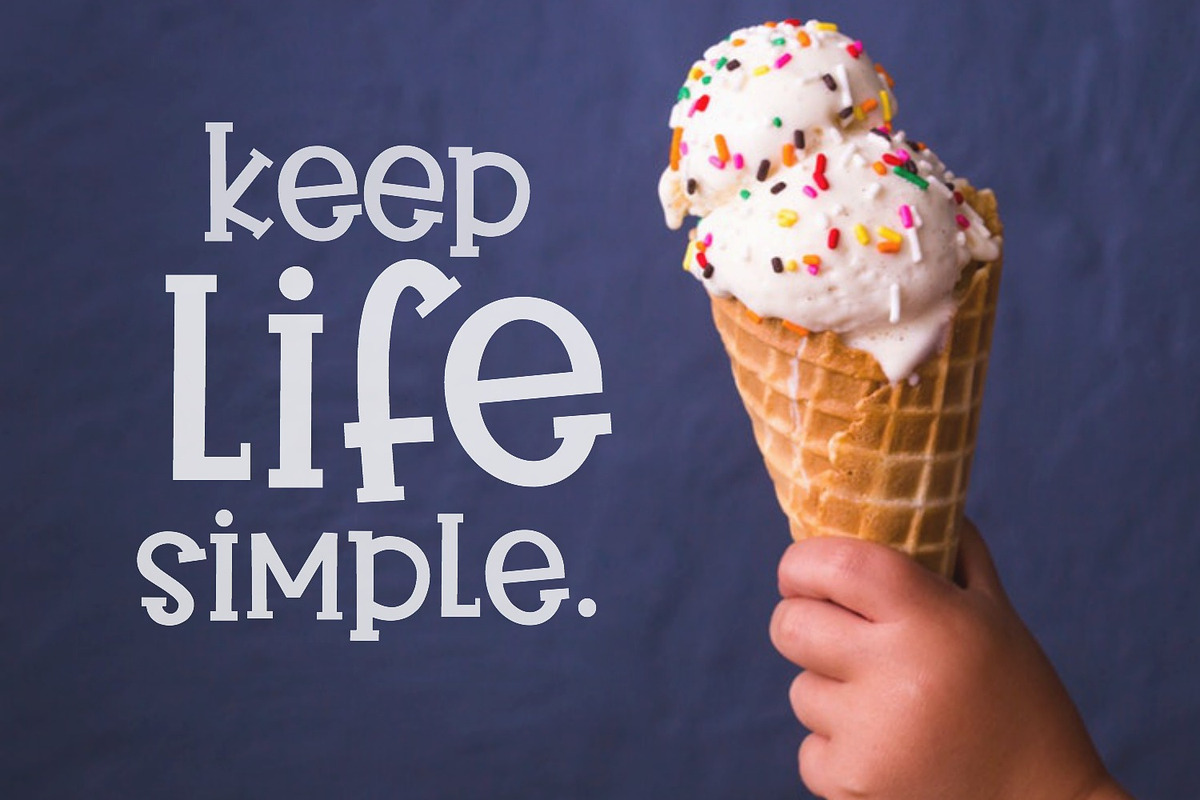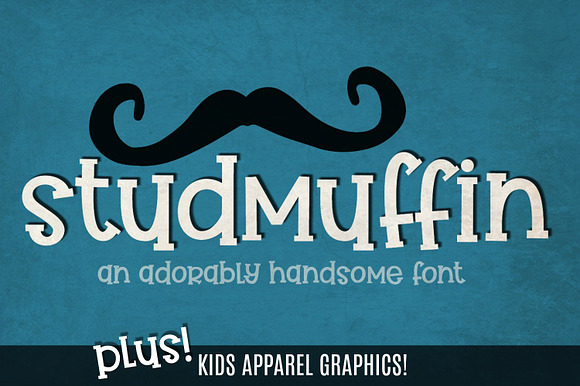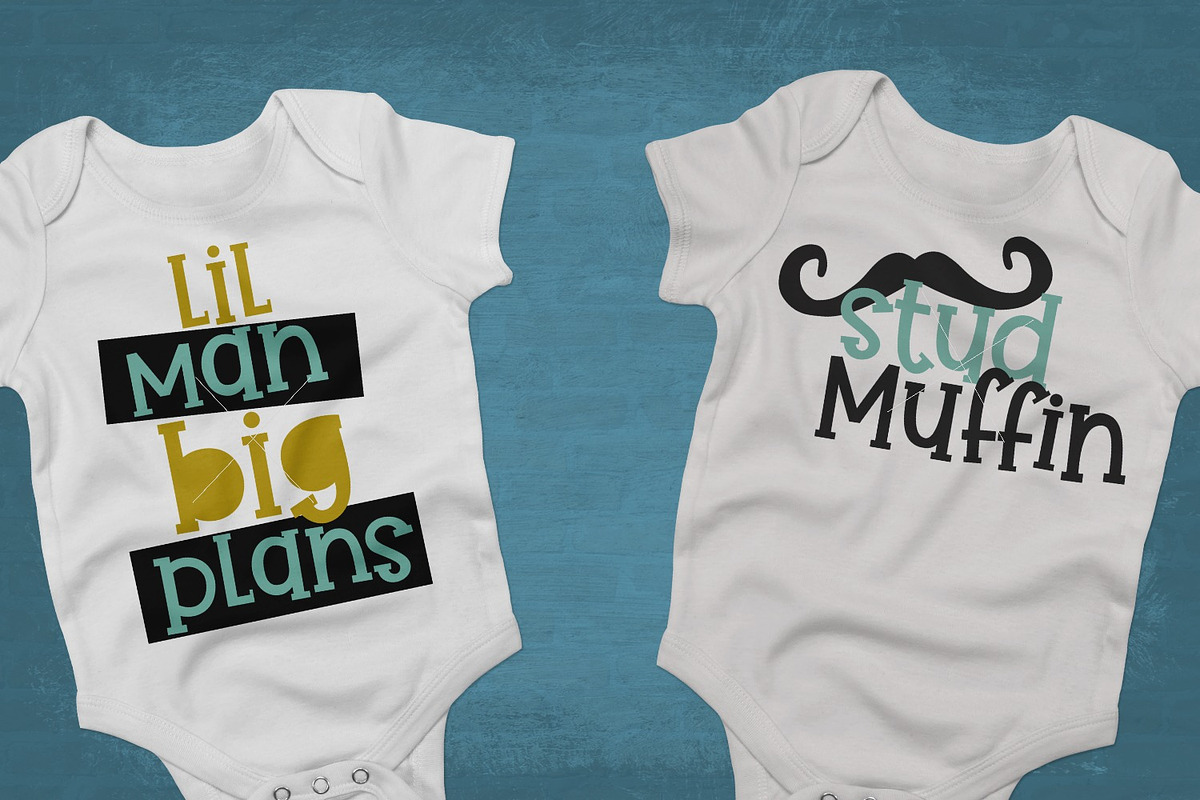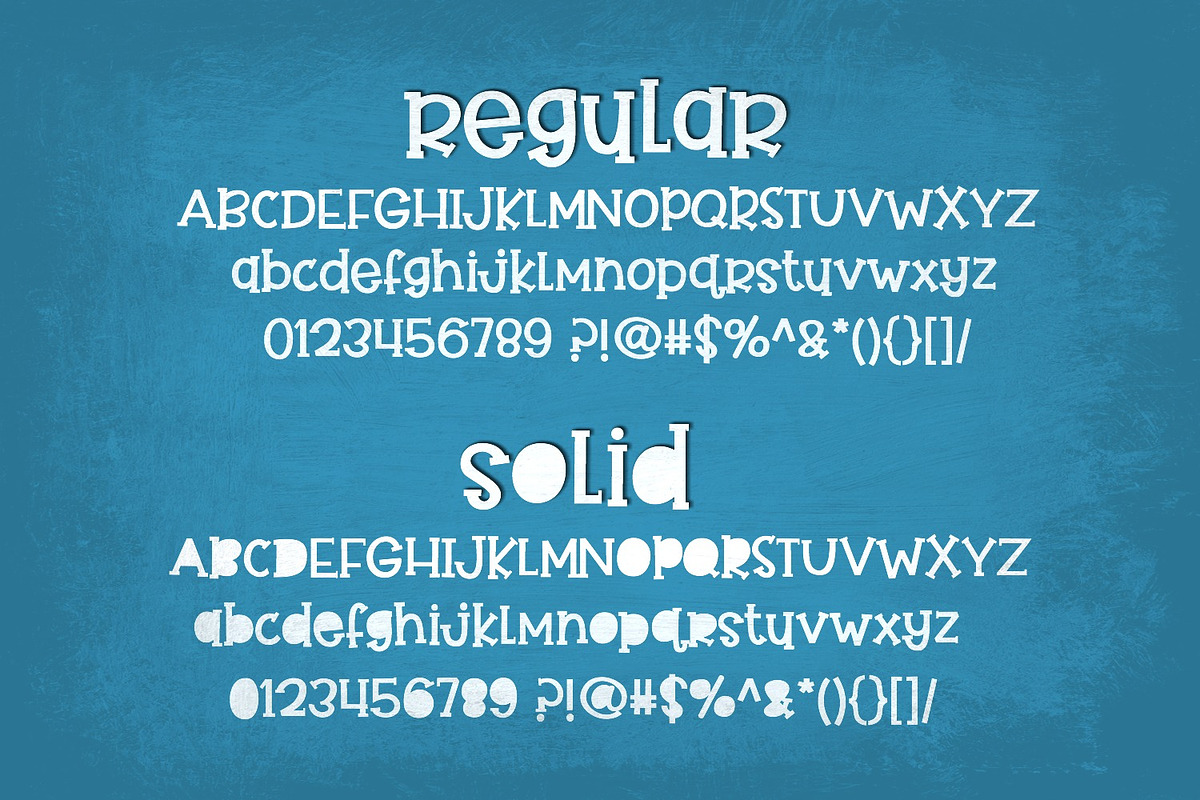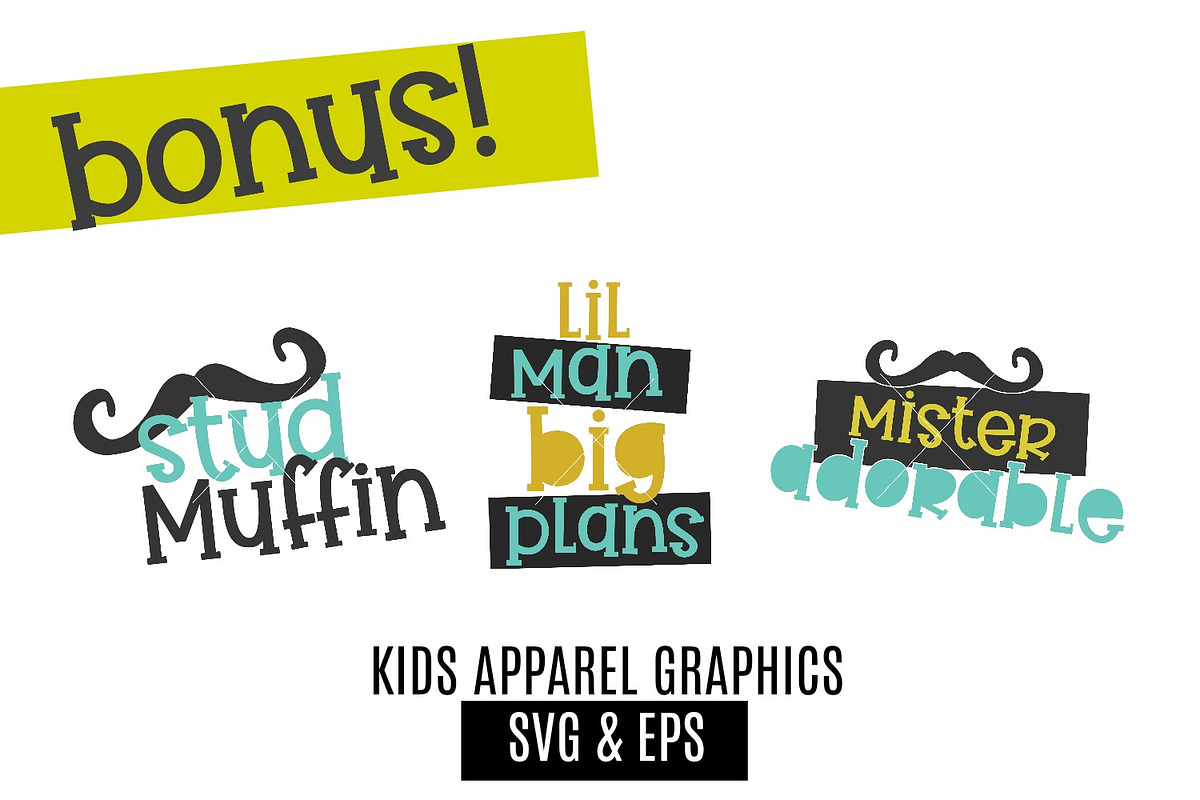
Studmuffin Font + Apparel Graphics
Studmuffin is an adorable childlike font that is perfect for many purposes! It comes in two styles: Regular and Solid, and includes Latin extended characters to support most European languages.